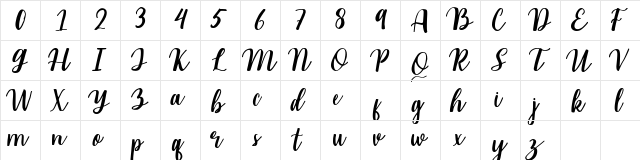
Malliana Regular
| Designer | Echa fajar romadhon |
Design Context for Malliana Typeface
Malliana is a composed and adaptable typeface that performs quietly and consistently across a wide range of design contexts.